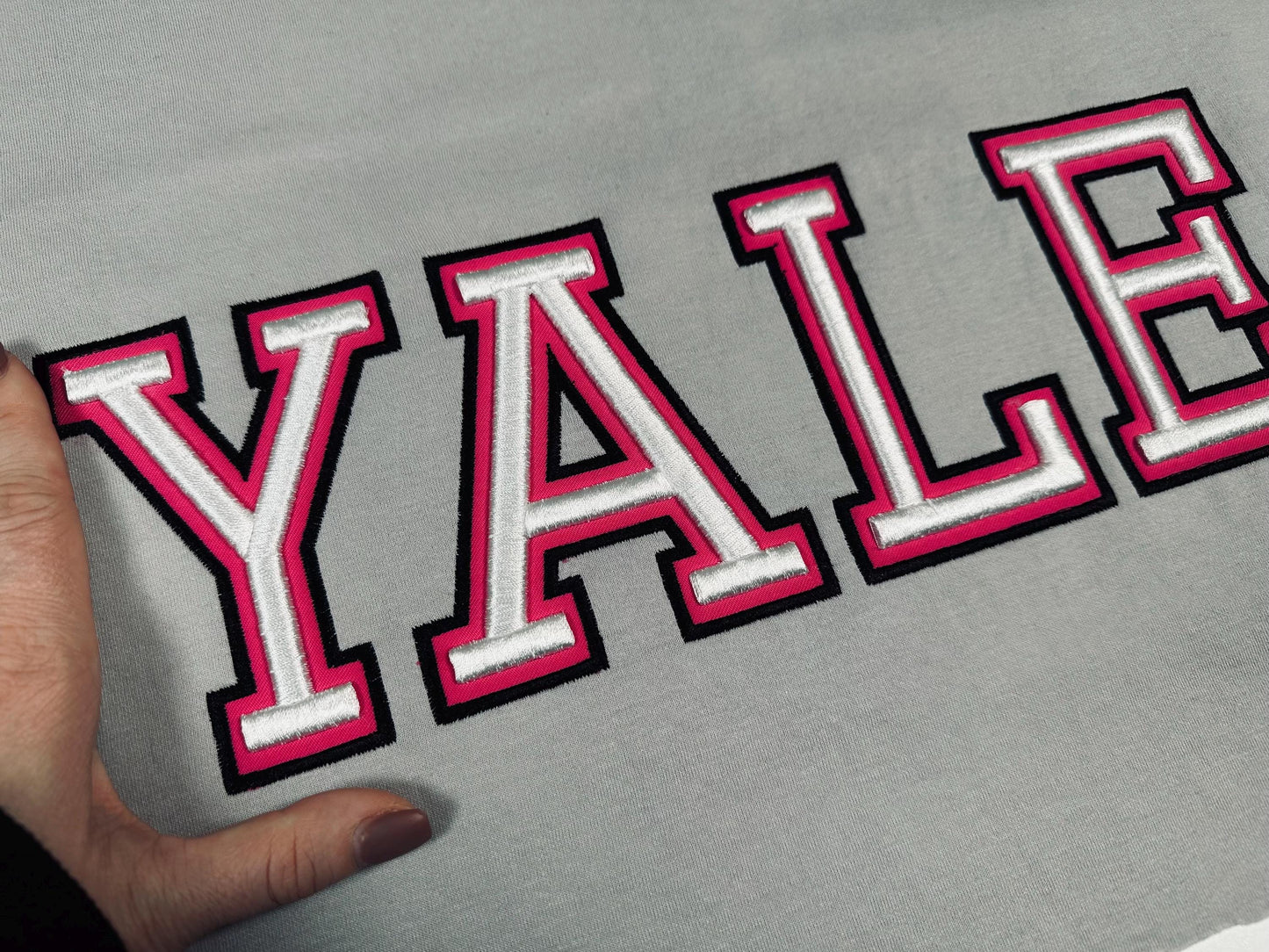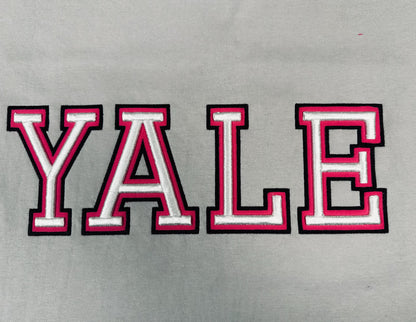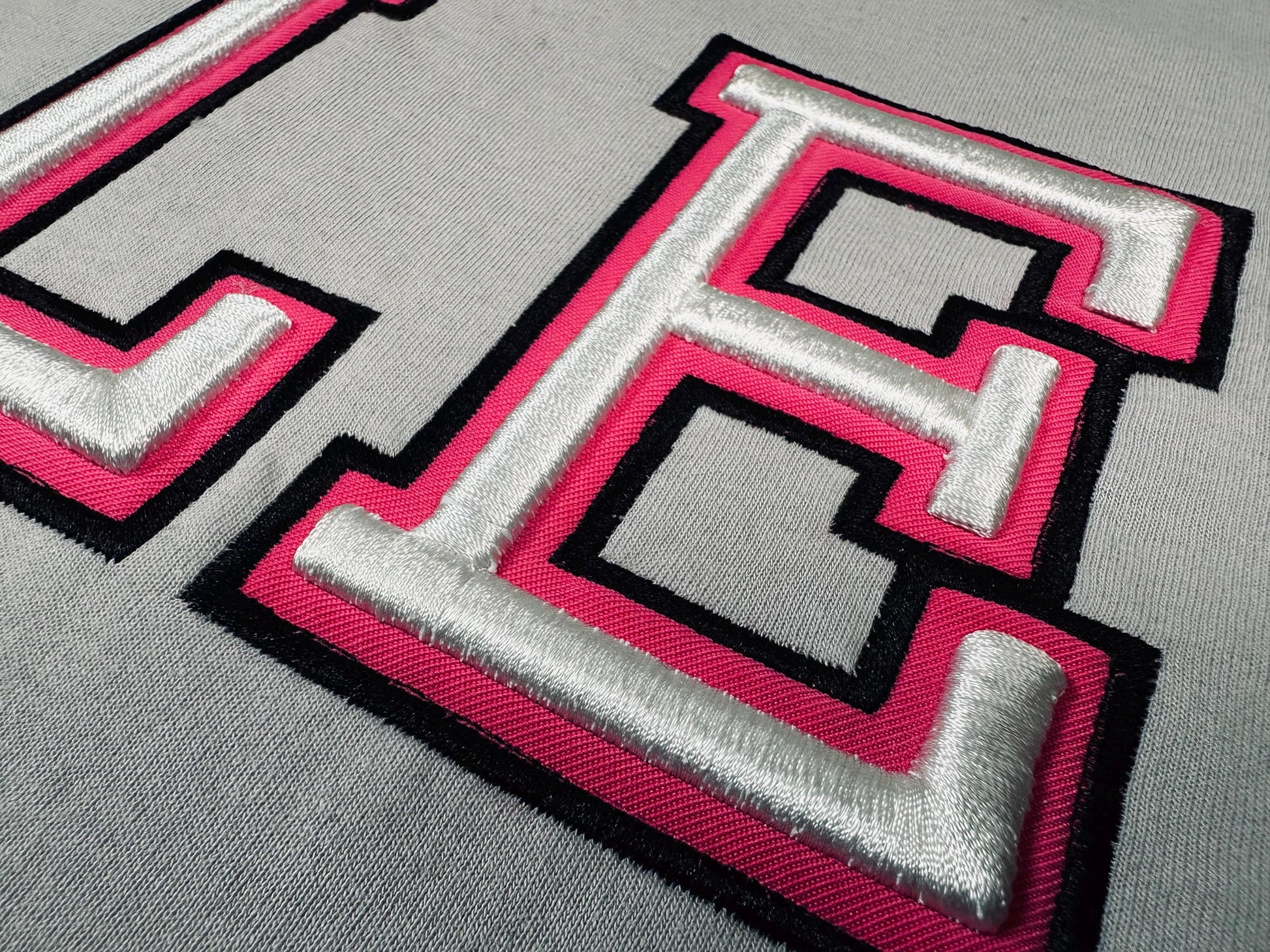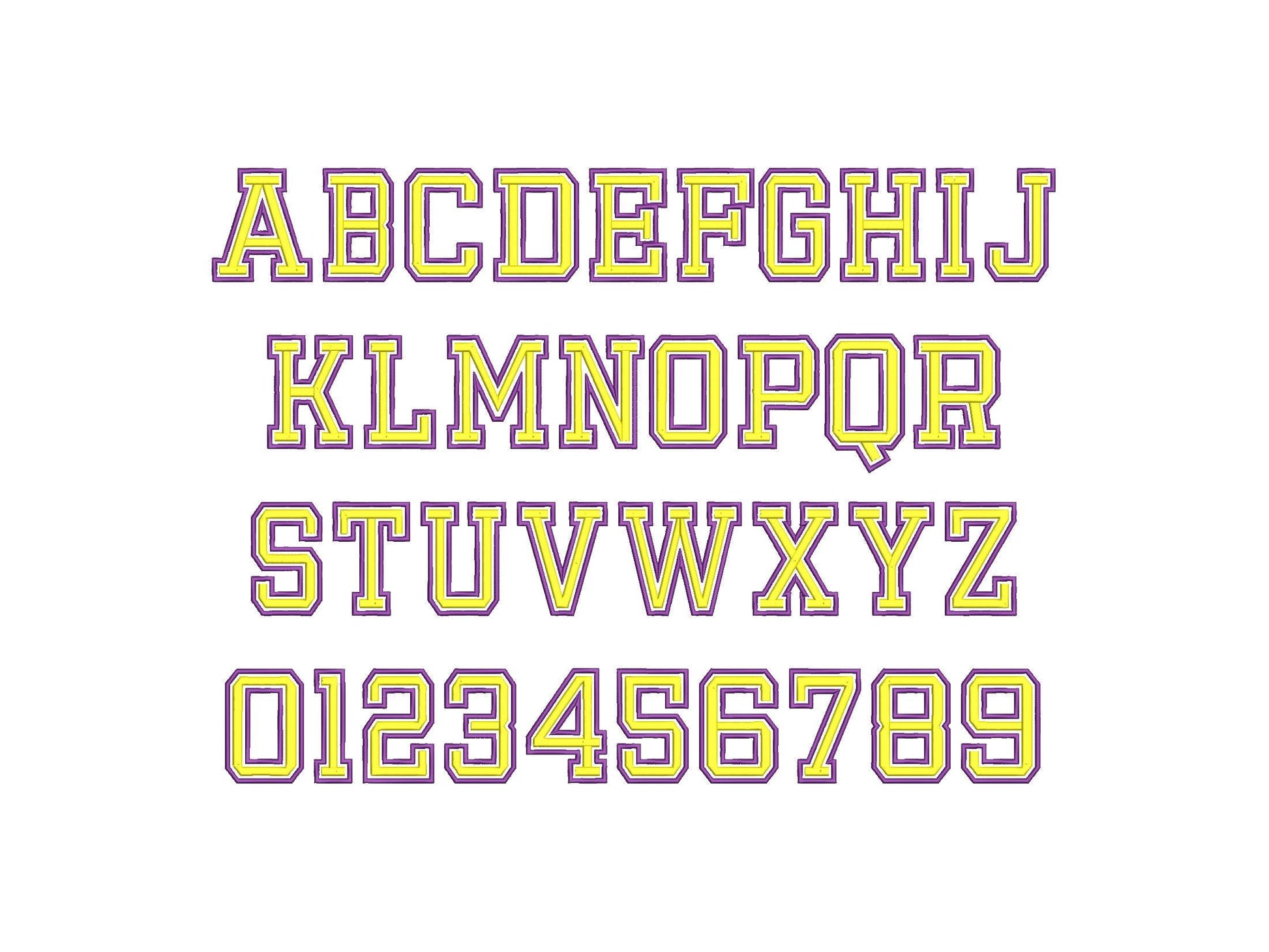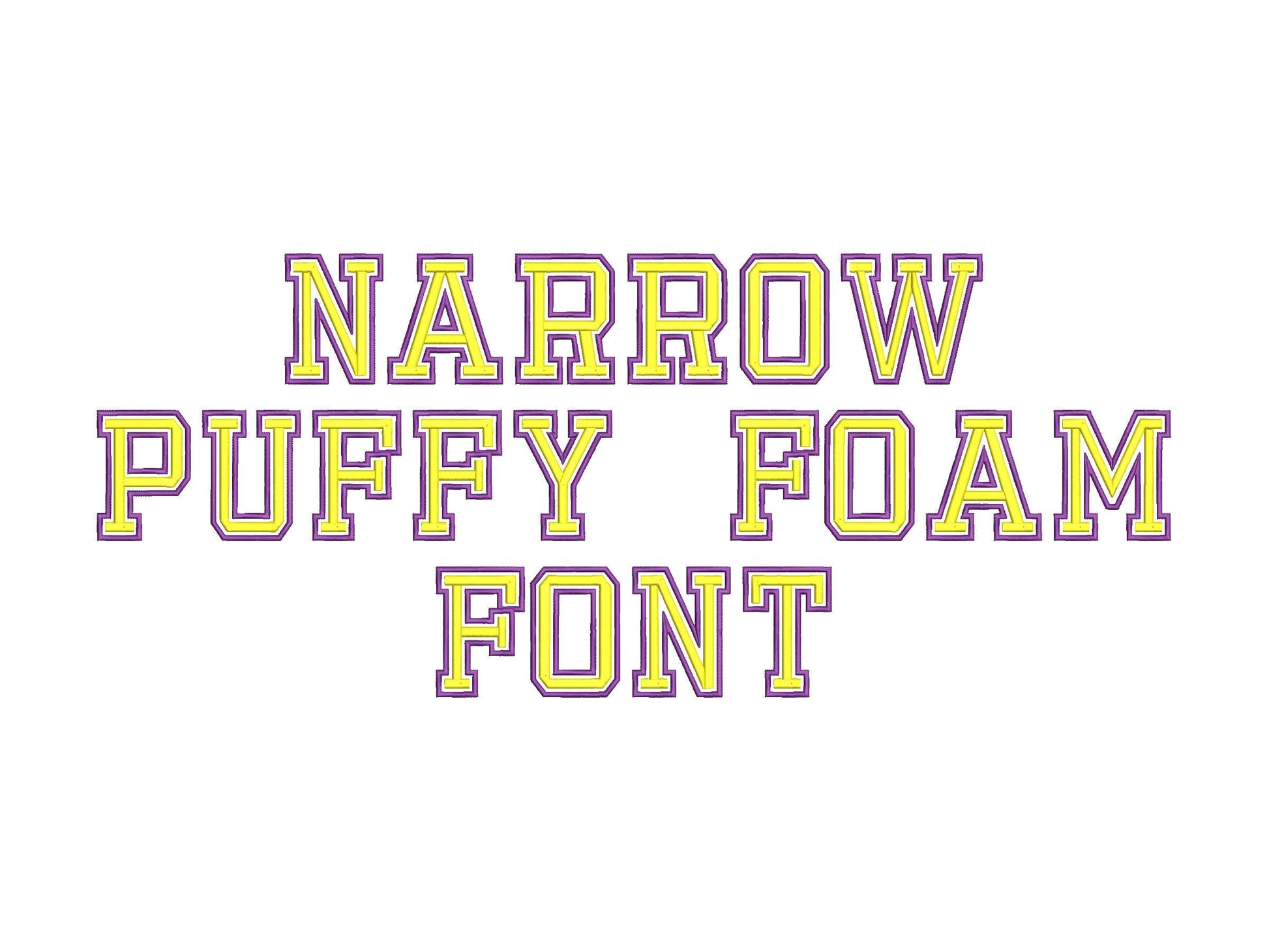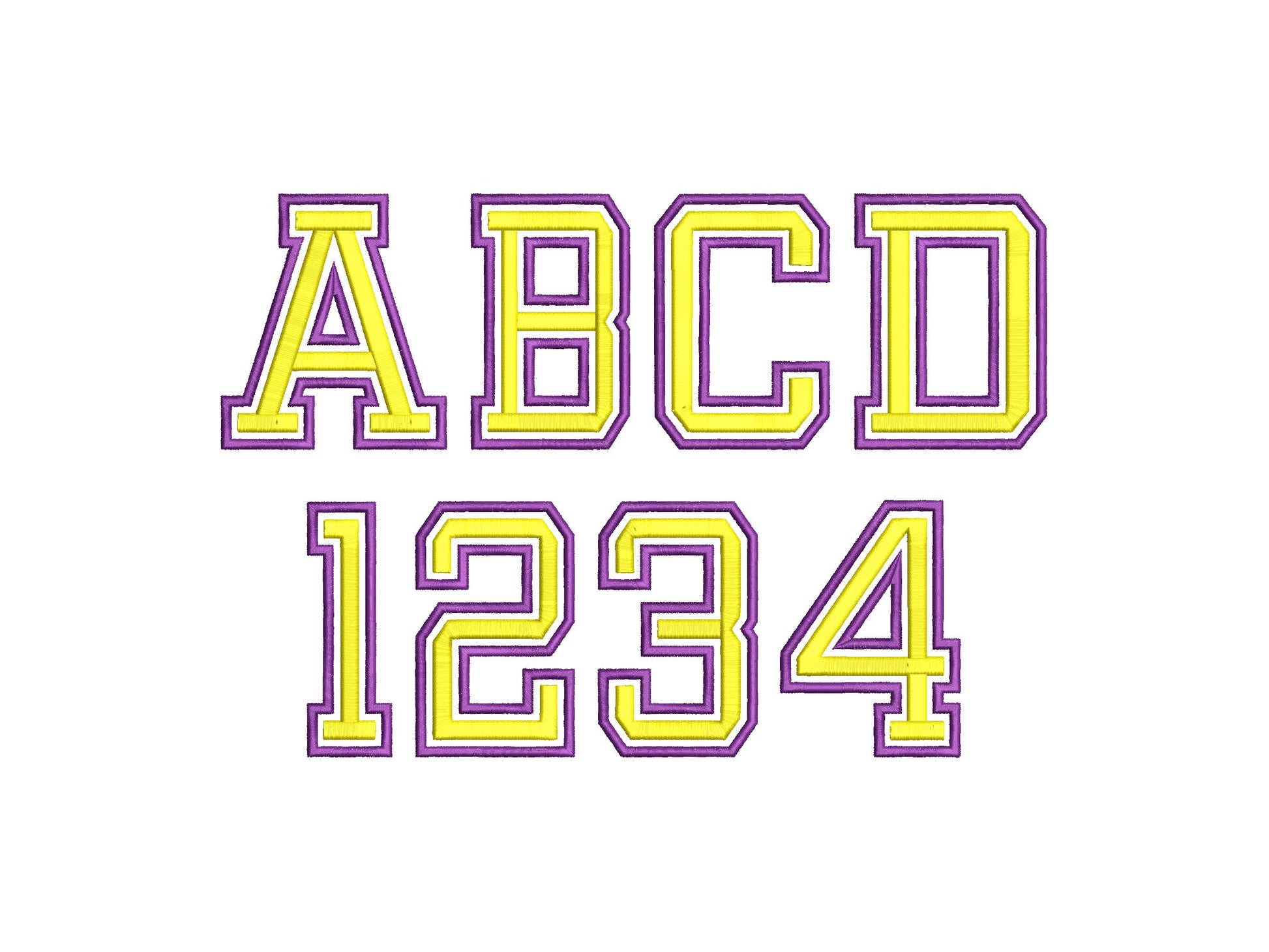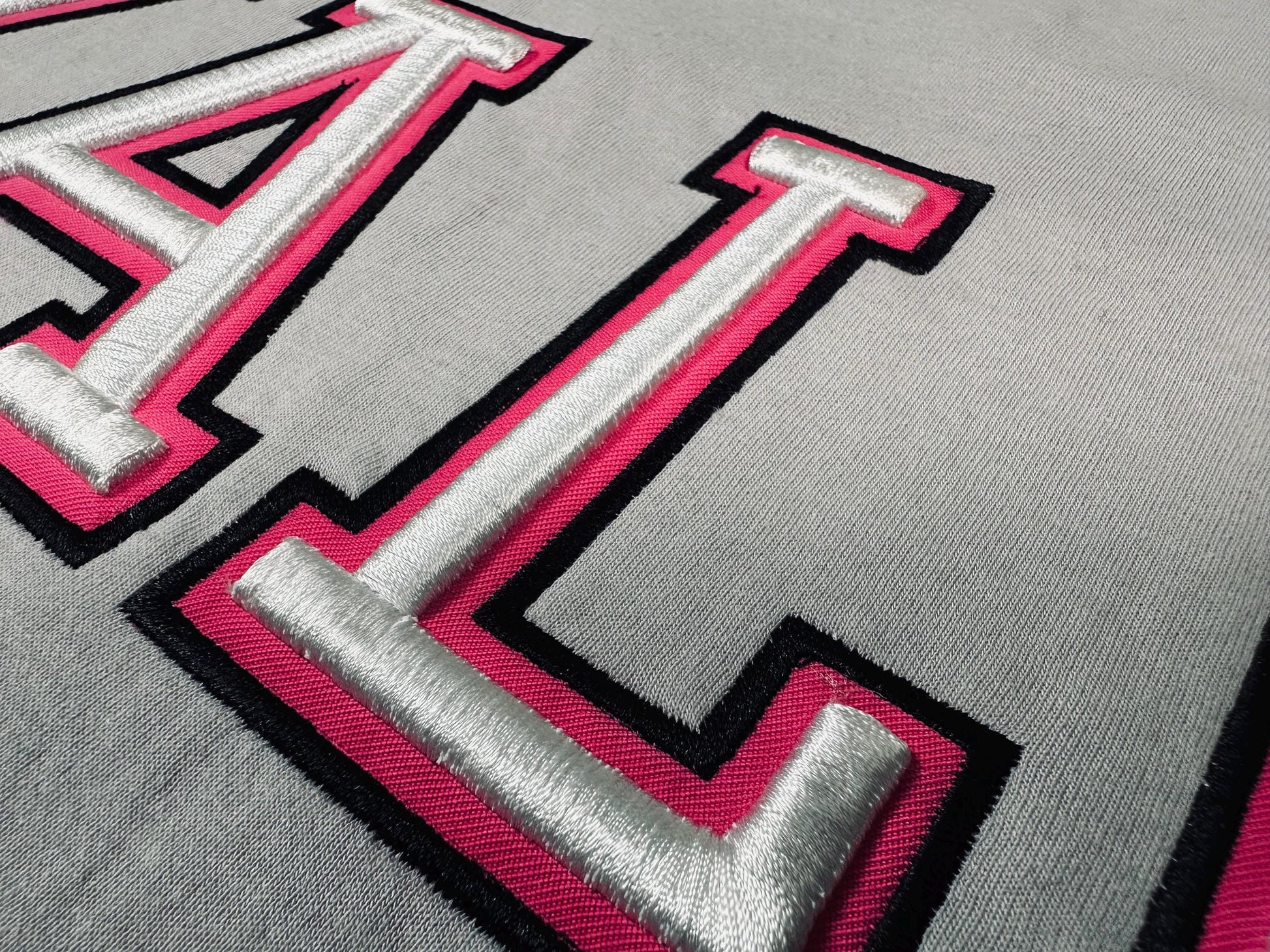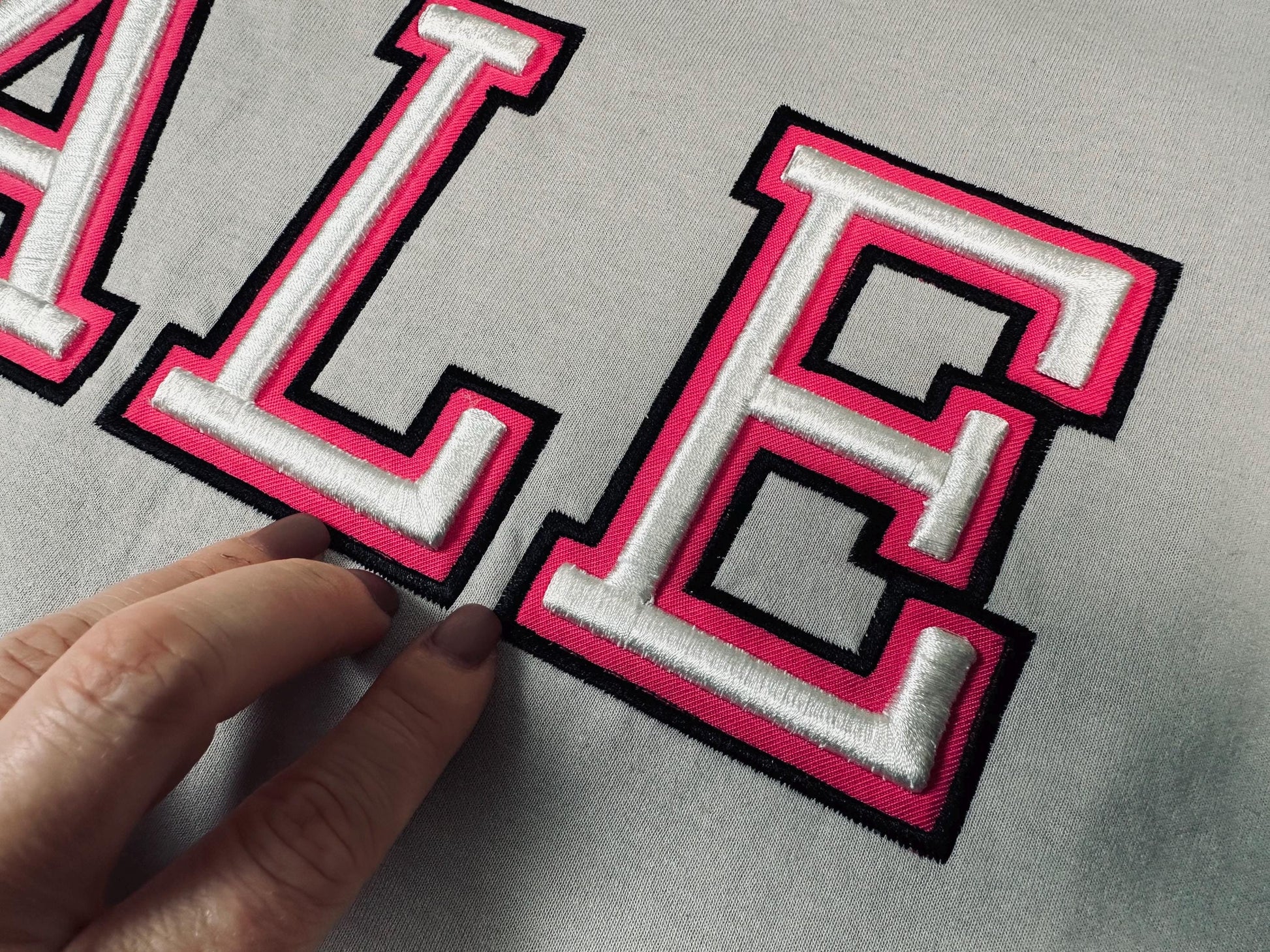
Or click to open the linkA 3D puffy narrow varsity applique font stitched over foam. Made for raised team letters on caps, sweatshirts and jackets.
Uppercase letters A to Z and numbers 0 to 9. Three sizes: 3.3, 3.9 and 4.7 inches. Applique over puffy foam; 3 mm foam works well.